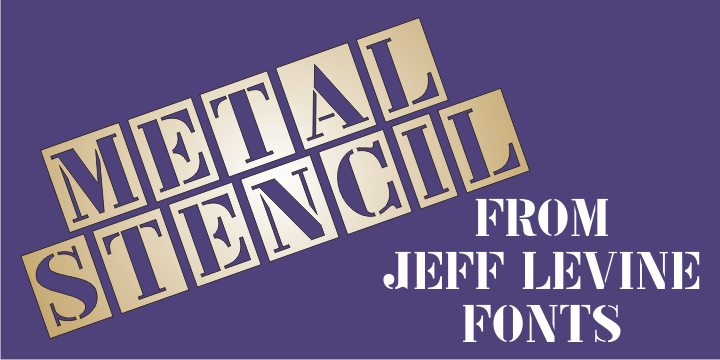
Metal Stencil
Metal Stencil JNL is a digital reconstruction of the brass stencil set used as a model for French Stencil JNL. Each character sits on its own individual 'card' and is monospaced.
There is a limited character set consisting of letters, numbers, punctuation and a few extra glyphs including foreign currency symbols.